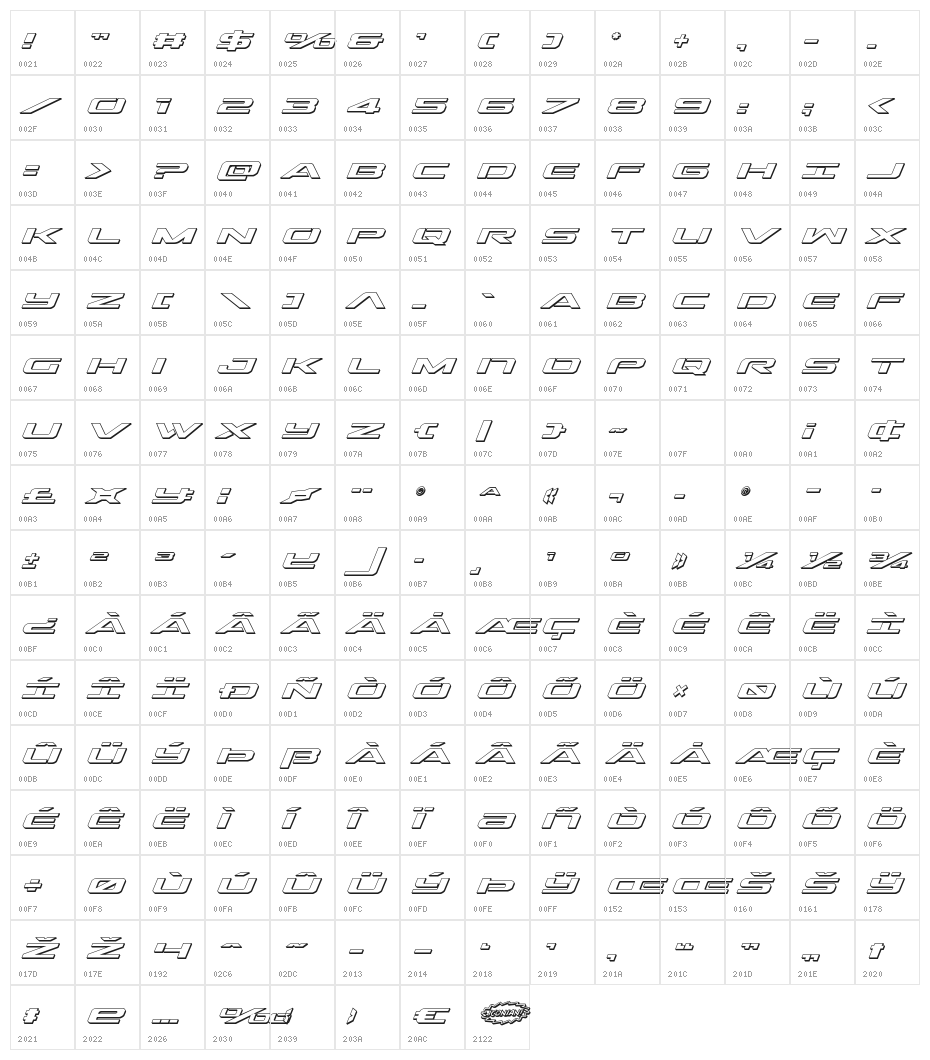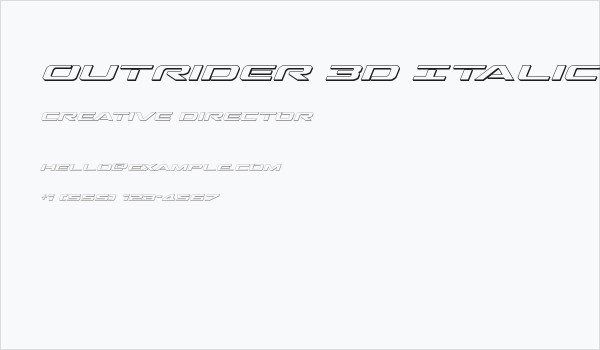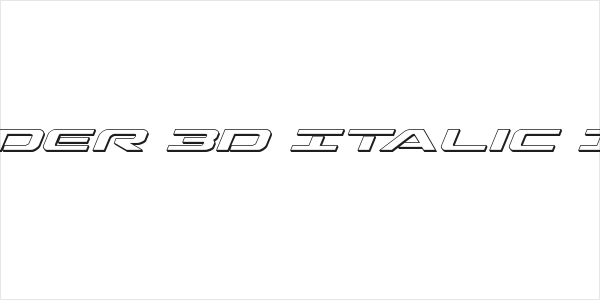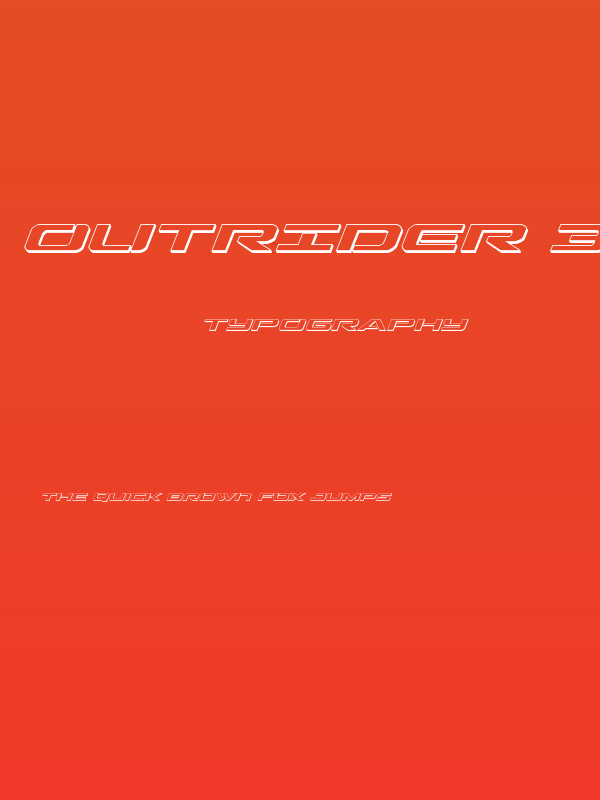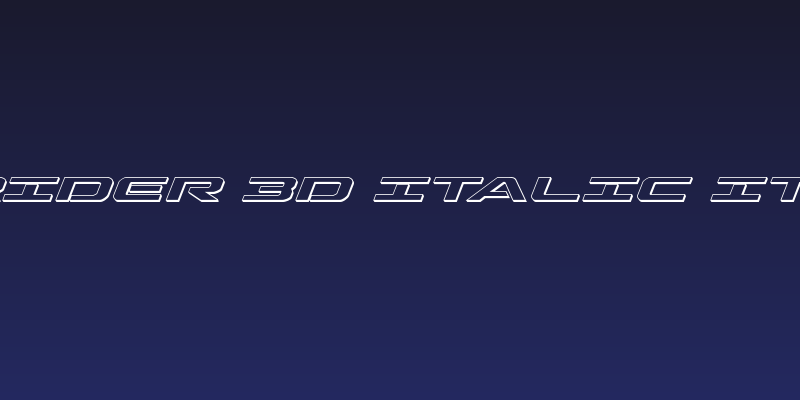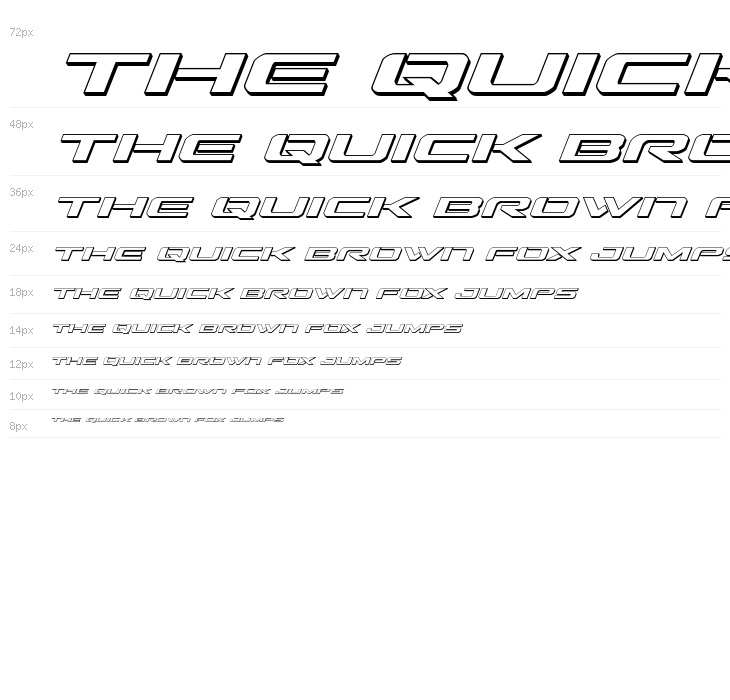
Outrider 3D Italic Italic Font
Outrider 3D Italic Italic Description
This font features a dynamic and futuristic design with a 3D effect that gives it a sense of depth and movement. The italicized style adds a sleek and modern touch, making it ideal for projects that require a sense of speed or technology. The characters are outlined, providing a bold and eye-catching appearance. This font is well-suited for headlines, logos, and any design that aims to stand out with a contemporary and innovative look.
| Proposed Projects | Ideal for technology branding, gaming titles, futuristic posters, and innovative product packaging. |